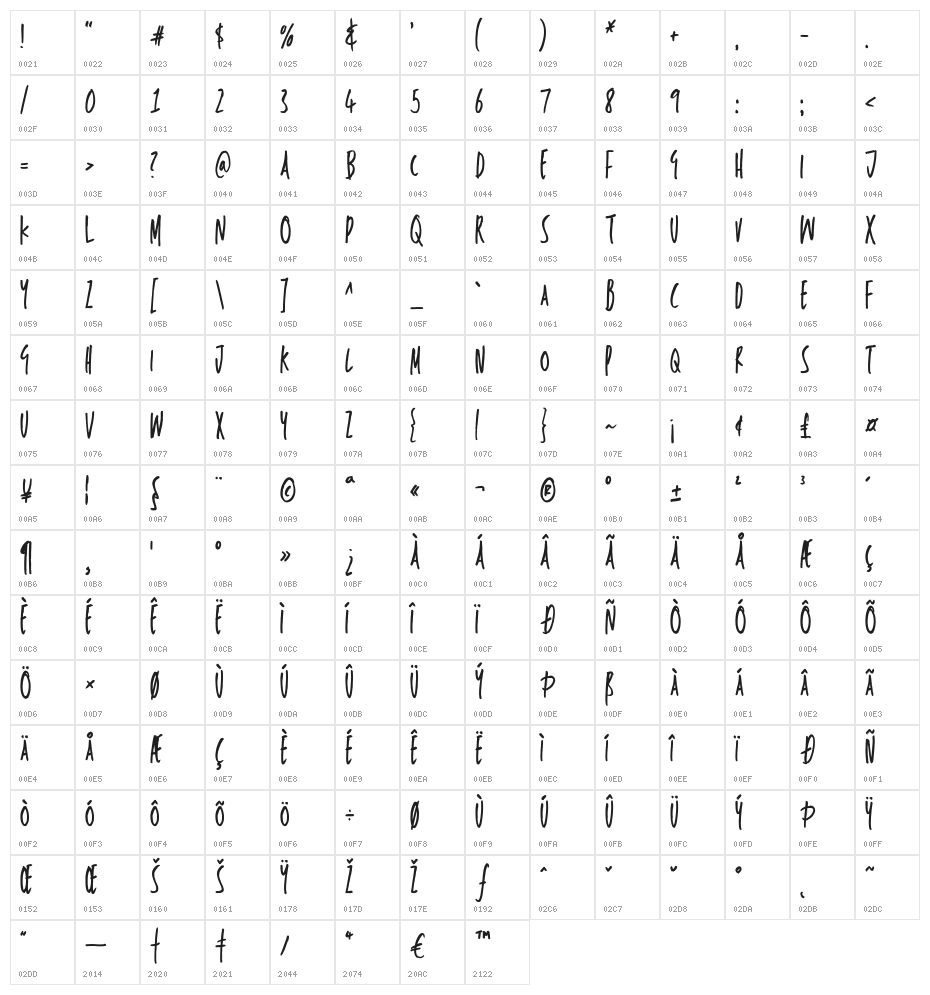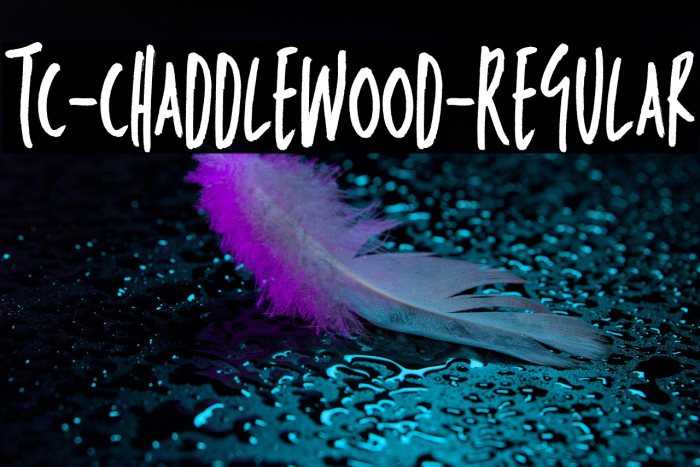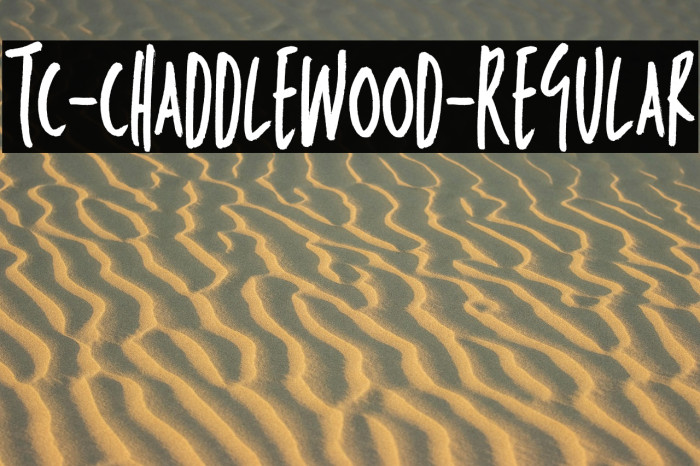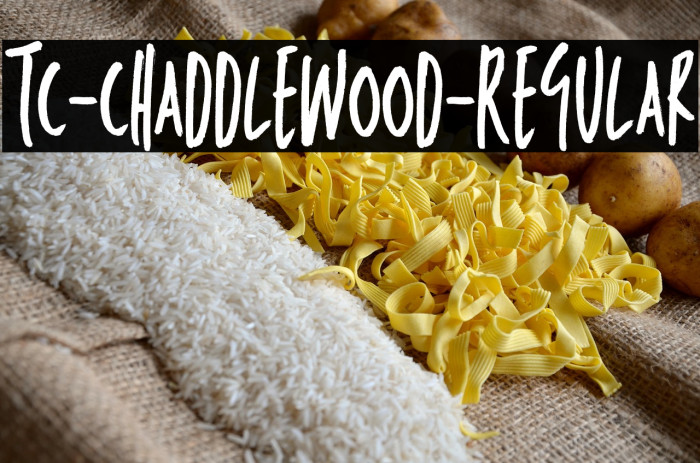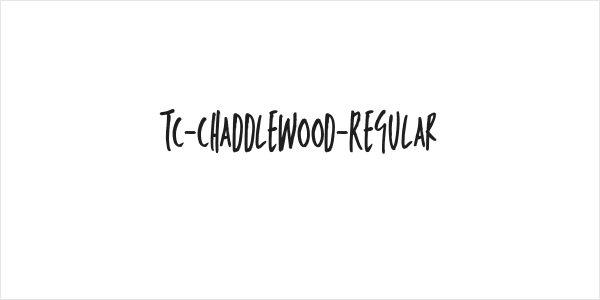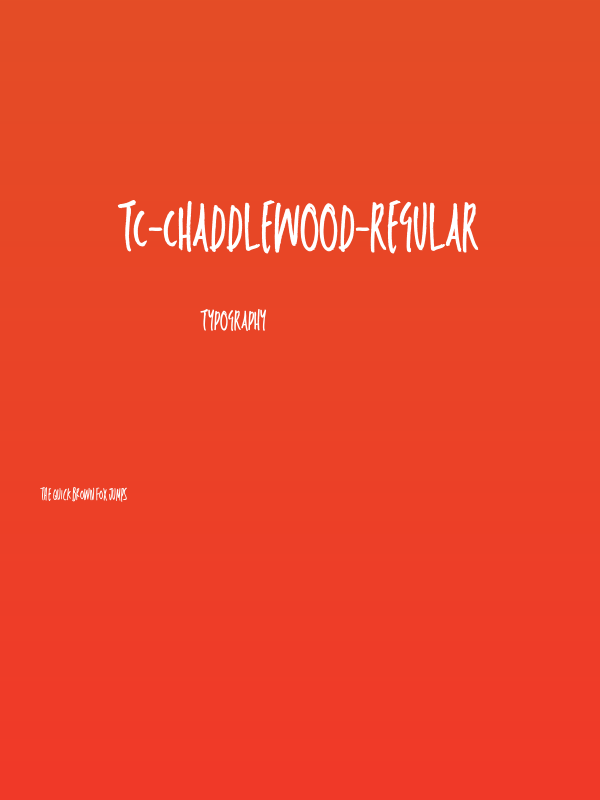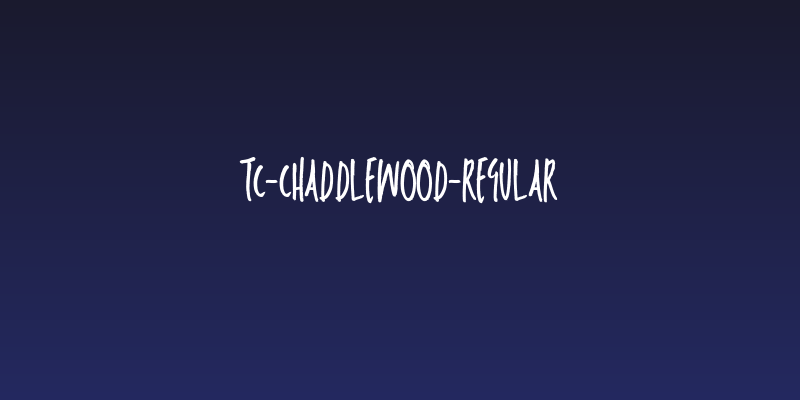
TC-Chaddlewood-Regular Font
TC-Chaddlewood-Regular Description
This font features a playful and energetic handwritten style, characterized by its tall, narrow letters and slightly irregular strokes. The uppercase and lowercase letters maintain a consistent height, giving a cohesive appearance. The numbers and special characters follow the same lively aesthetic, adding to the font's charm. The strokes vary in thickness, providing a dynamic and informal feel. This font is perfect for projects that require a personal touch, such as invitations, greeting cards, or creative branding. Its unique style makes it stand out, while still being legible and versatile.
| Proposed Projects | Ideal for invitations, greeting cards, creative branding, and personal projects. |